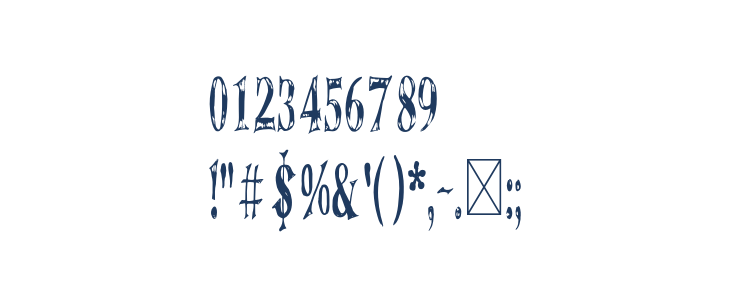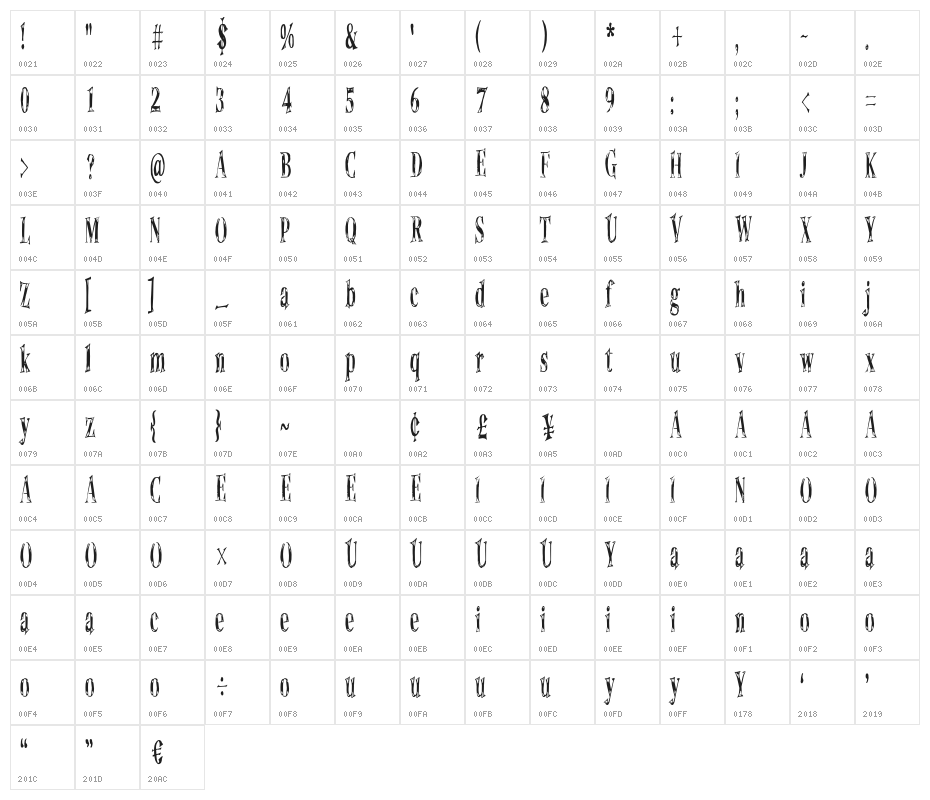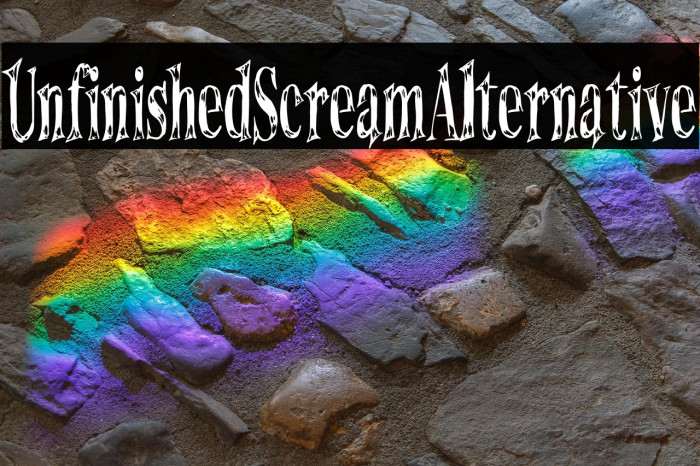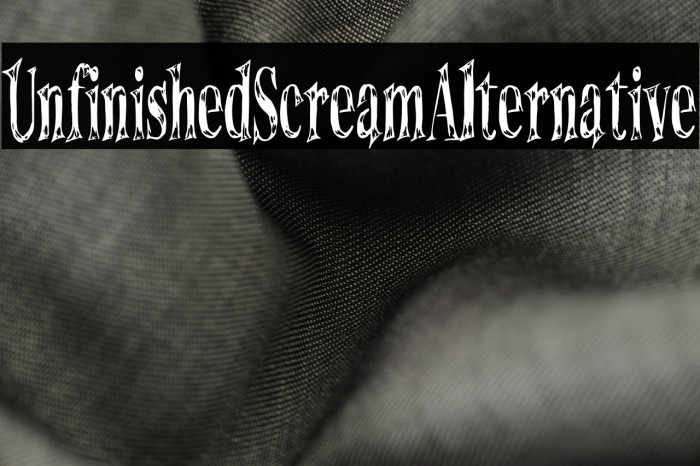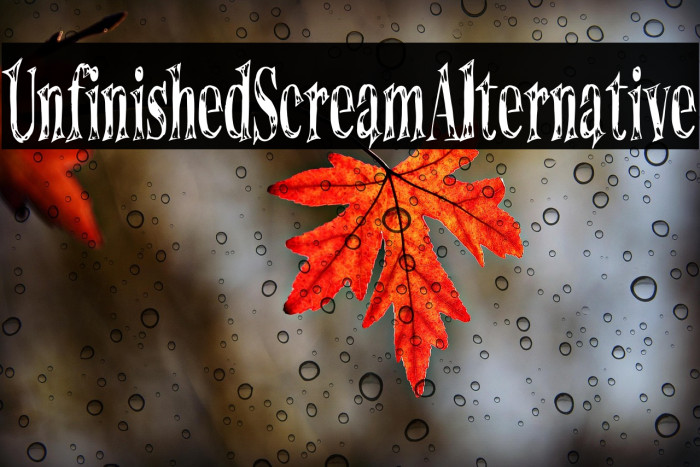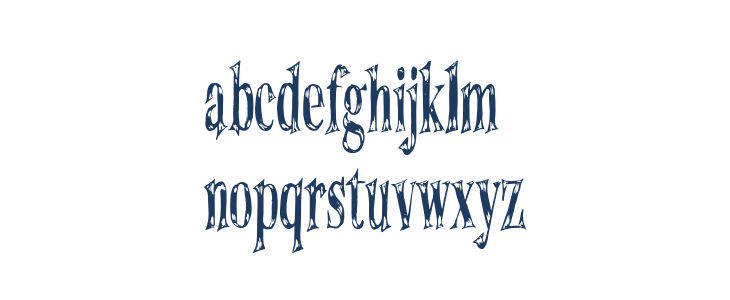
UnfinishedScreamAlternative Font
UnfinishedScreamAlternative Description
This font features a highly decorative and expressive style, characterized by jagged edges and a distressed appearance. The uppercase and lowercase letters maintain a consistent theme of sharp, irregular strokes that give a sense of movement and energy. The numbers and special characters follow the same design, ensuring uniformity across all glyphs. This font's unique style makes it stand out, with a slightly chaotic yet artistic flair that captures attention. The overall design suggests a hand-drawn or sketched quality, adding to its distinctive and creative appeal.
| Proposed Projects | Ideal for horror-themed posters, album covers, Halloween invitations, or any project needing a dramatic and edgy look. |